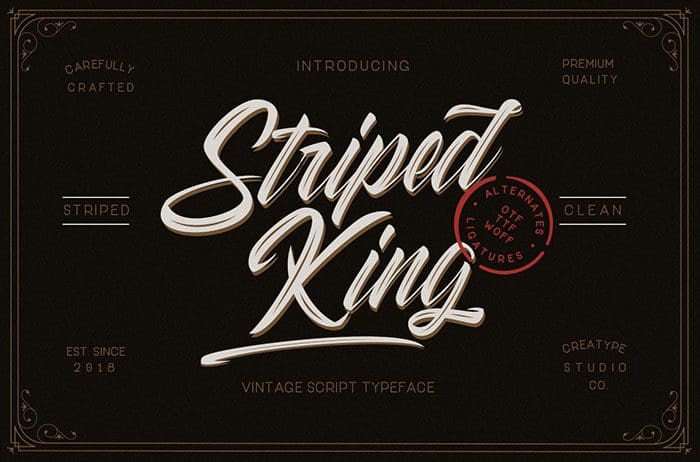
Striped King Vintage Font
Striped King is a modern, vintage font that looks great in a wide range of projects. This gives projects an elegant and immensely stylish appeal. Thanks to Creatype Studio for sharing this font! Take a look at this portfolio for more of his stunning fonts.